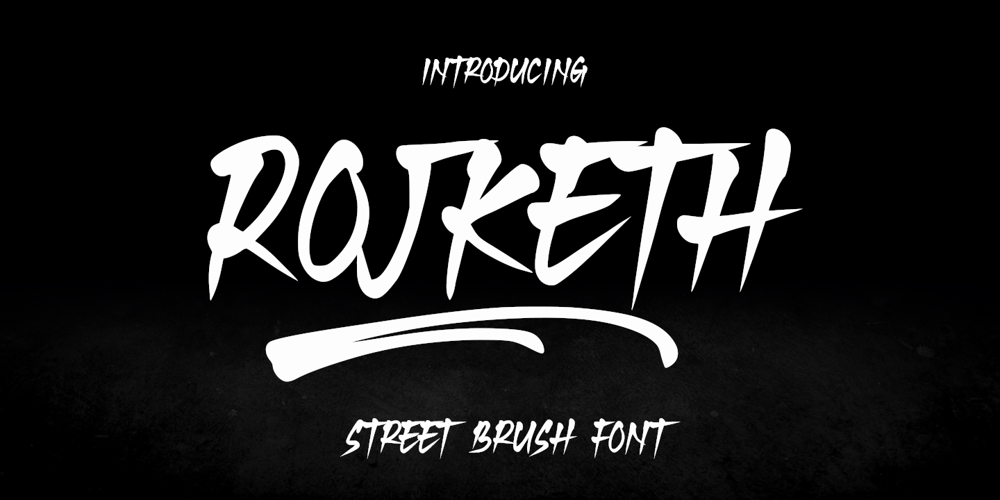
Rojketh Font Family was designed by Faizal Alfarabi and published by Alfaraby Studio. Rojketh contains 1 styles and family package options. Rojketh Brush font is a stylish calligraphy that has a varied base line, fine lines, and classic and elegant touches. Can be used for various purposes. Such as title, signature, logo, wedding invitation, t-shirt, letterhead, nameplate, label, news, poster, badge, etc.Rojketh Brush displays stylish calligraphy alternate characters. Includes initial letters and terminals, alternatives, ligatures, and multiple language support.